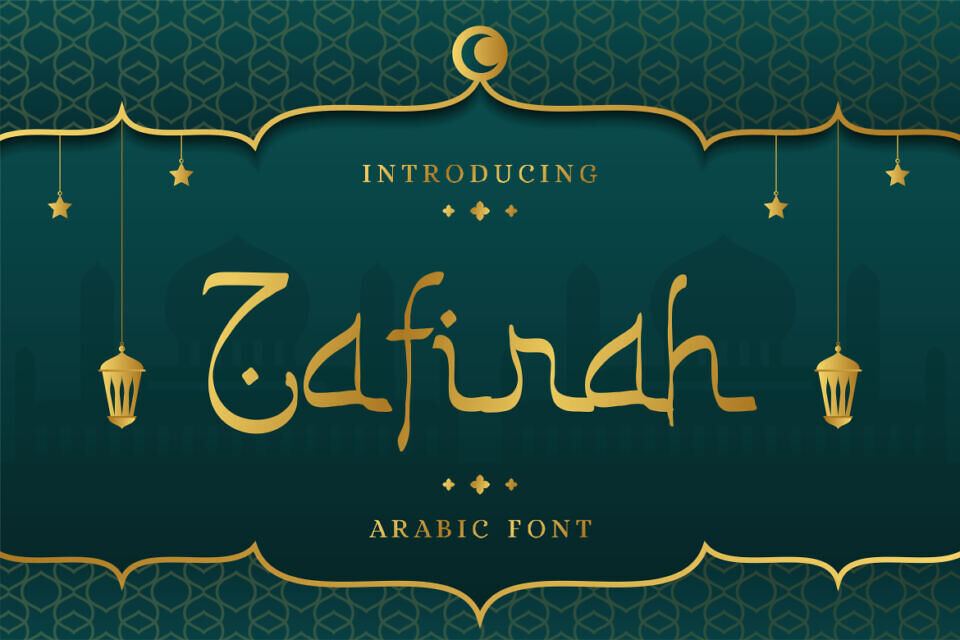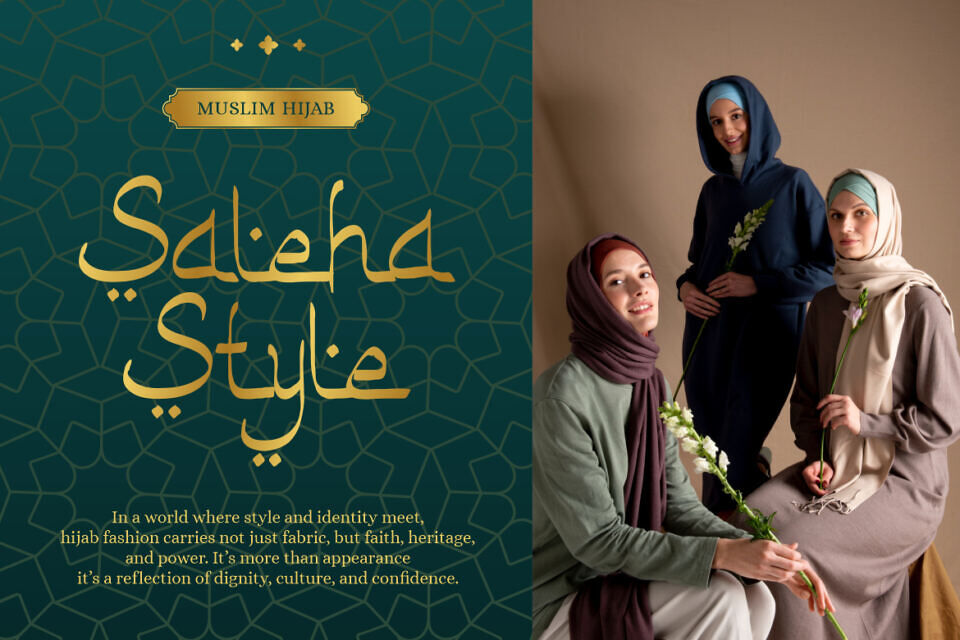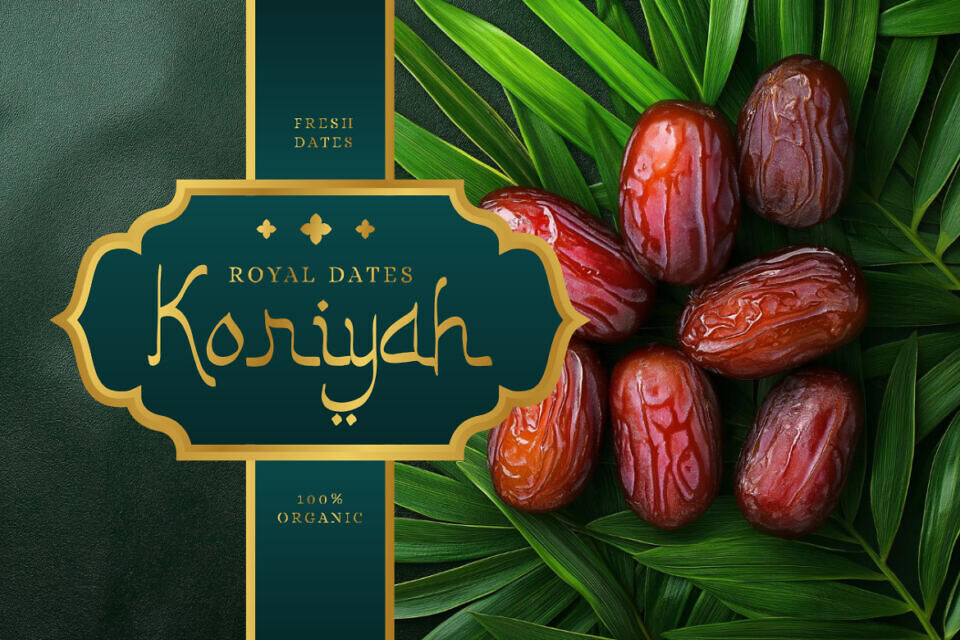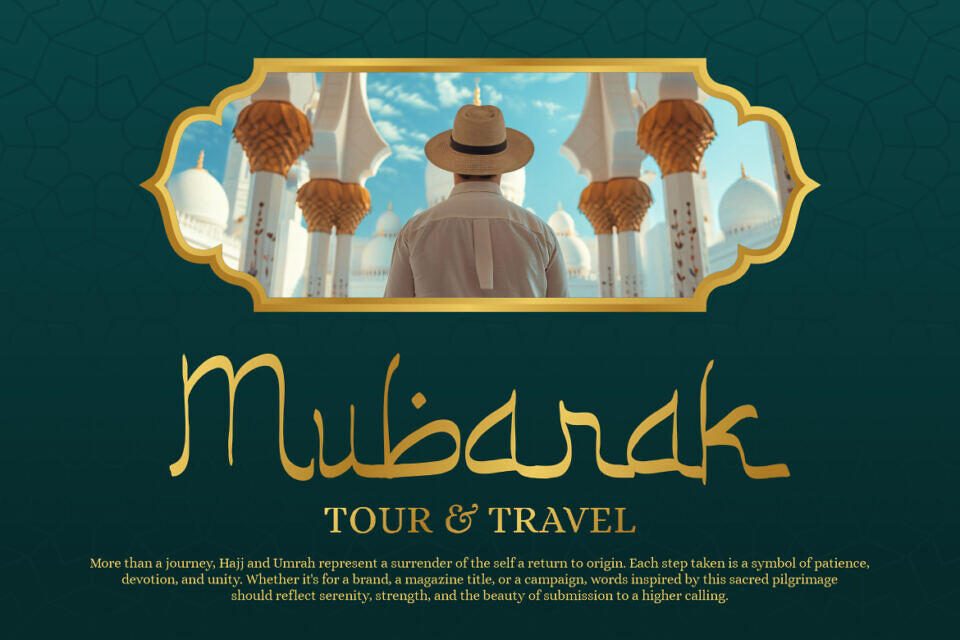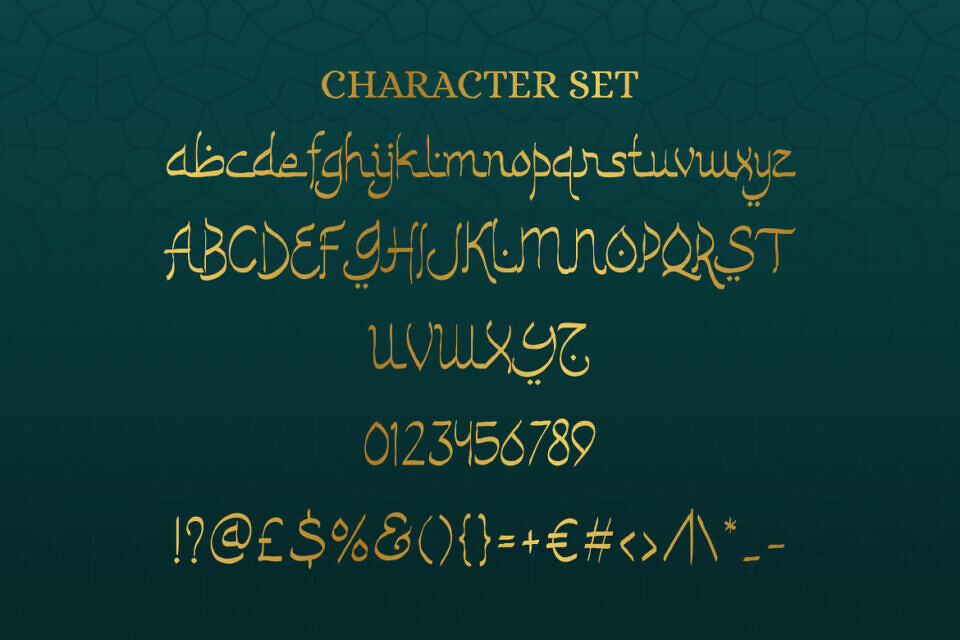
Zafirah is a elegant Arabic font that combines classic calligraphy with modern simplicity. Its balanced, curved lines and moderate stroke weight ensure readability at various sizes. The font exudes calmness, confidence, and cultural depth without appearing overly decorative.
Zafirah fits a wide range of creative and commercial projects. It performs well for logo design, brand identities, and product packaging with Islamic or Middle Eastern themes. The font also suits posters, headlines, invitations, greeting cards, and editorial covers. Its legibility supports business use, while its elegance enhances premium presentations.